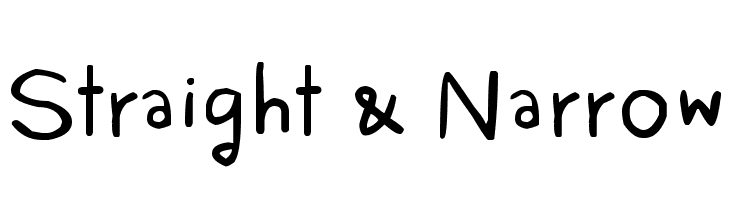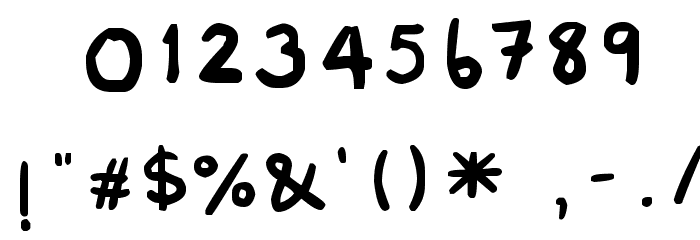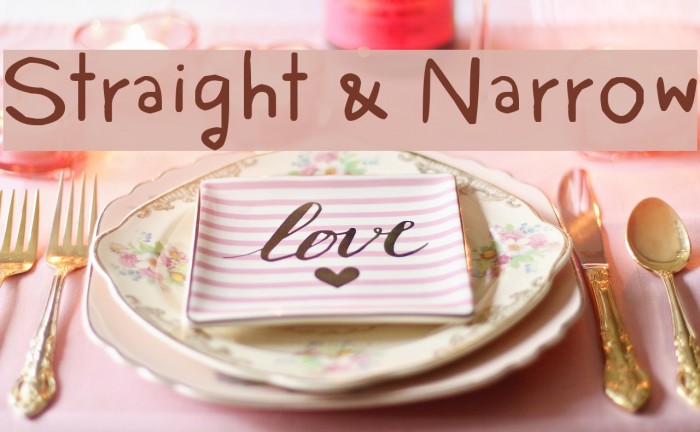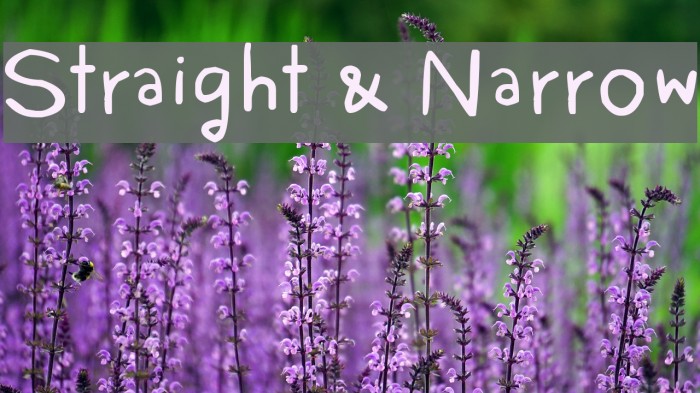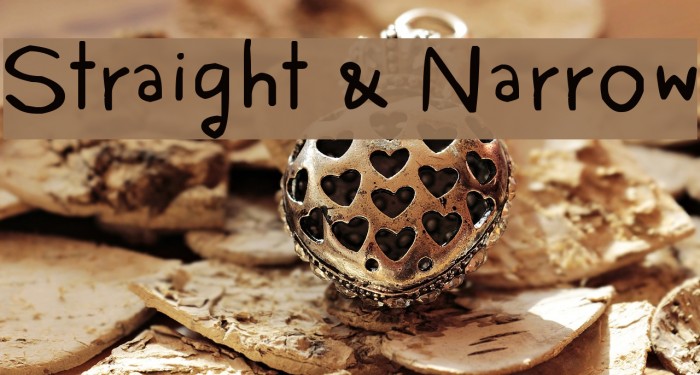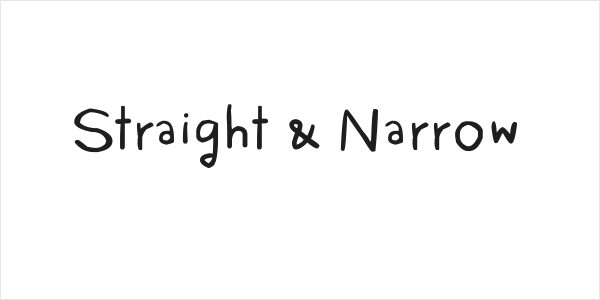
Straight & Narrow Font
Straight & Narrow Description
This font features a playful and informal style with a handwritten appearance. The characters are slightly irregular, adding a whimsical touch to the overall design. The uppercase letters are bold and rounded, while the lowercase letters maintain a consistent flow with a slight slant. Numbers and special characters follow the same playful aesthetic, making them easily recognizable and visually appealing. The font's unique charm lies in its ability to convey a sense of friendliness and approachability, making it suitable for casual and creative projects.
A playful, handwritten-style font with a friendly and informal appearance from Uncategorized fonts.
- Proposed Projects: Ideal for children's books, greeting cards, casual invitations, and creative branding projects.
- Overall Style: Casual
- Use Case: Headlines, Informal text, Creative projects